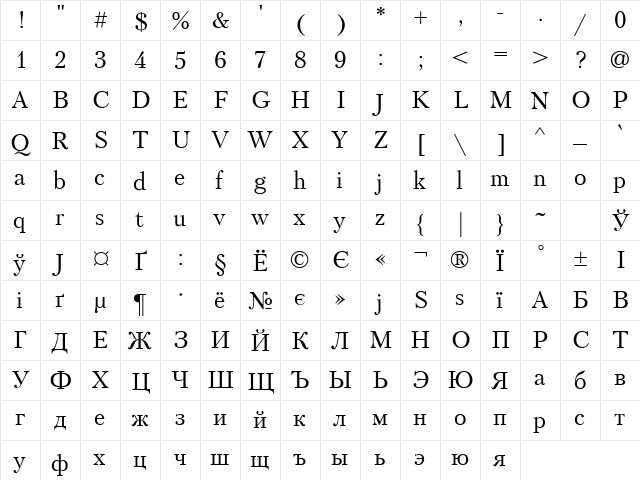
Petersburg Regular
Design Context for Petersburg Typeface
Petersburg is a composed and adaptable typeface that performs quietly and consistently across a wide range of design contexts.